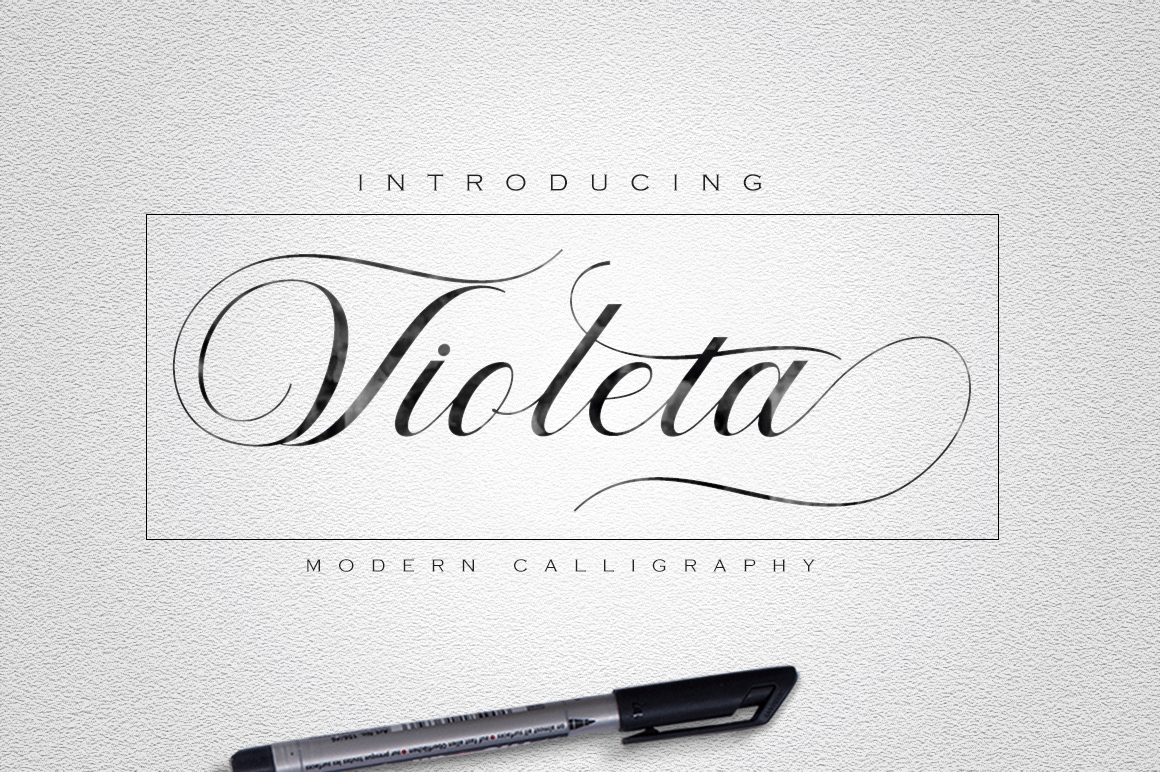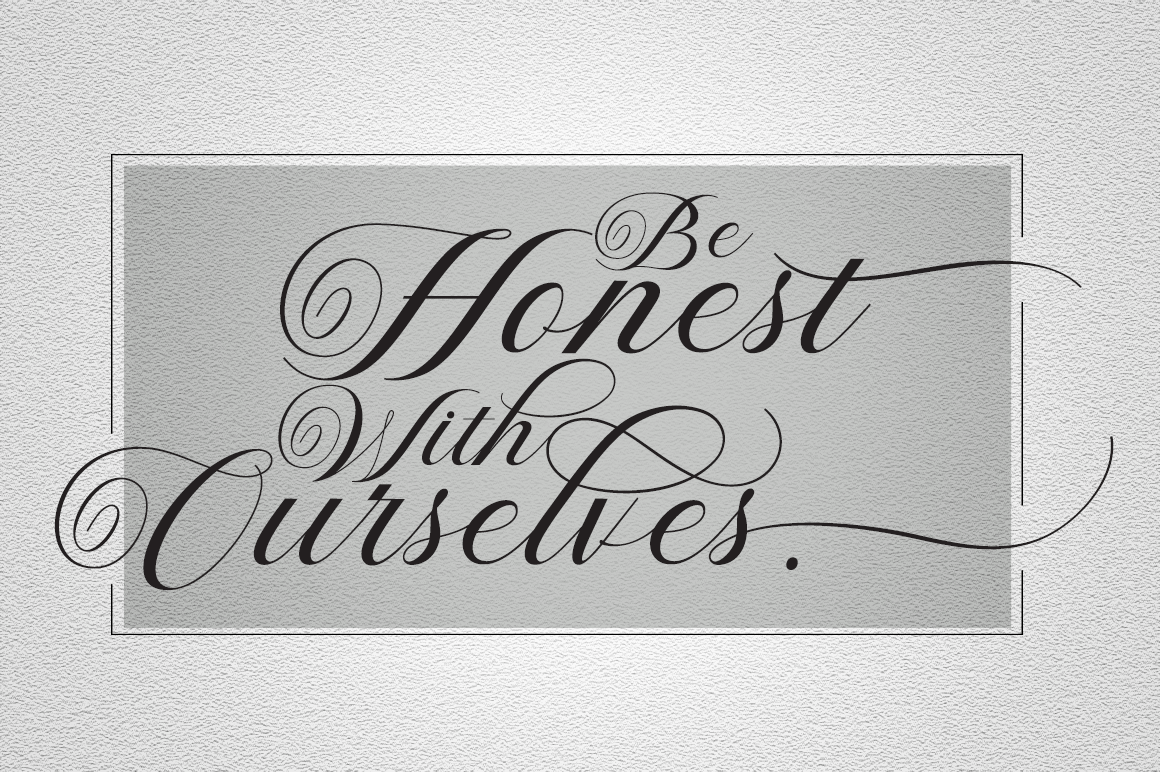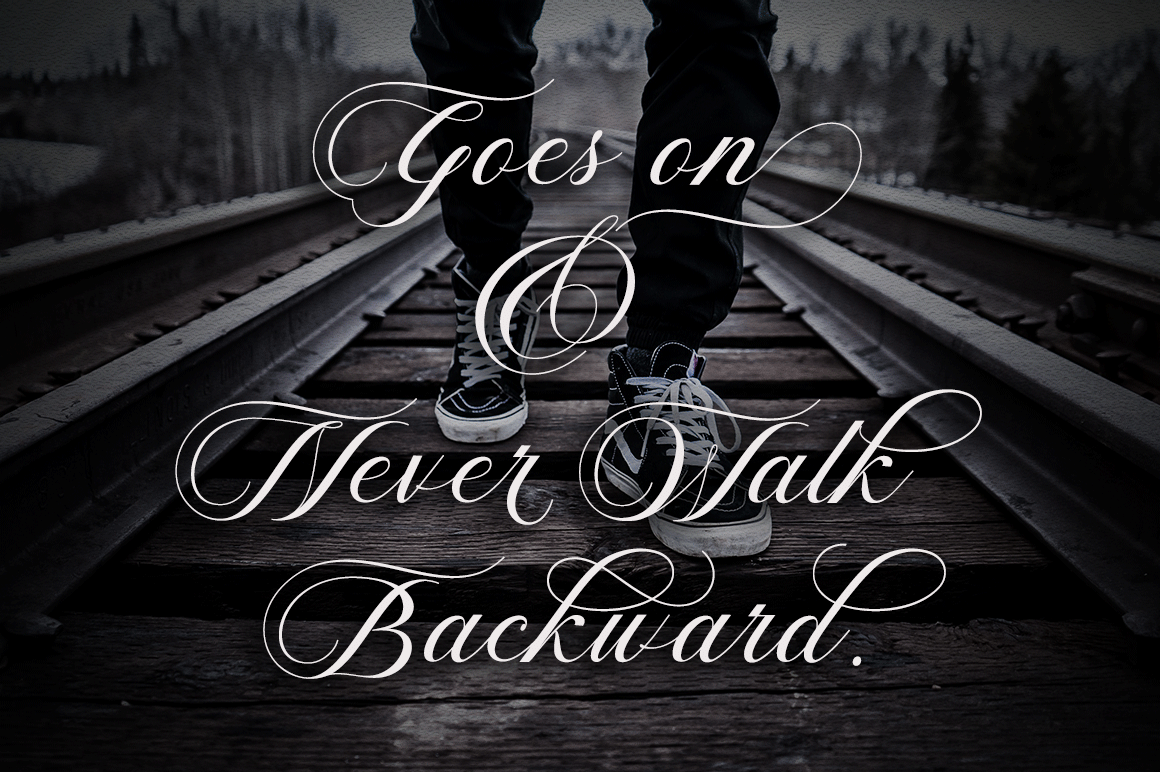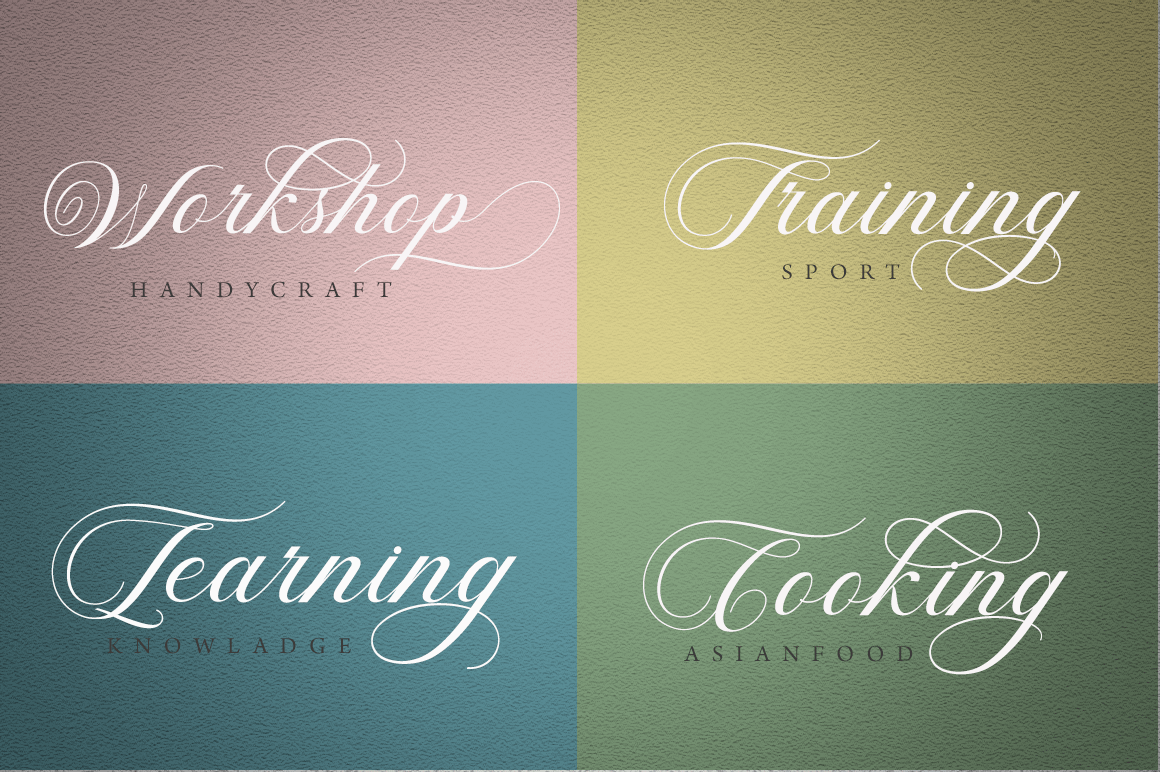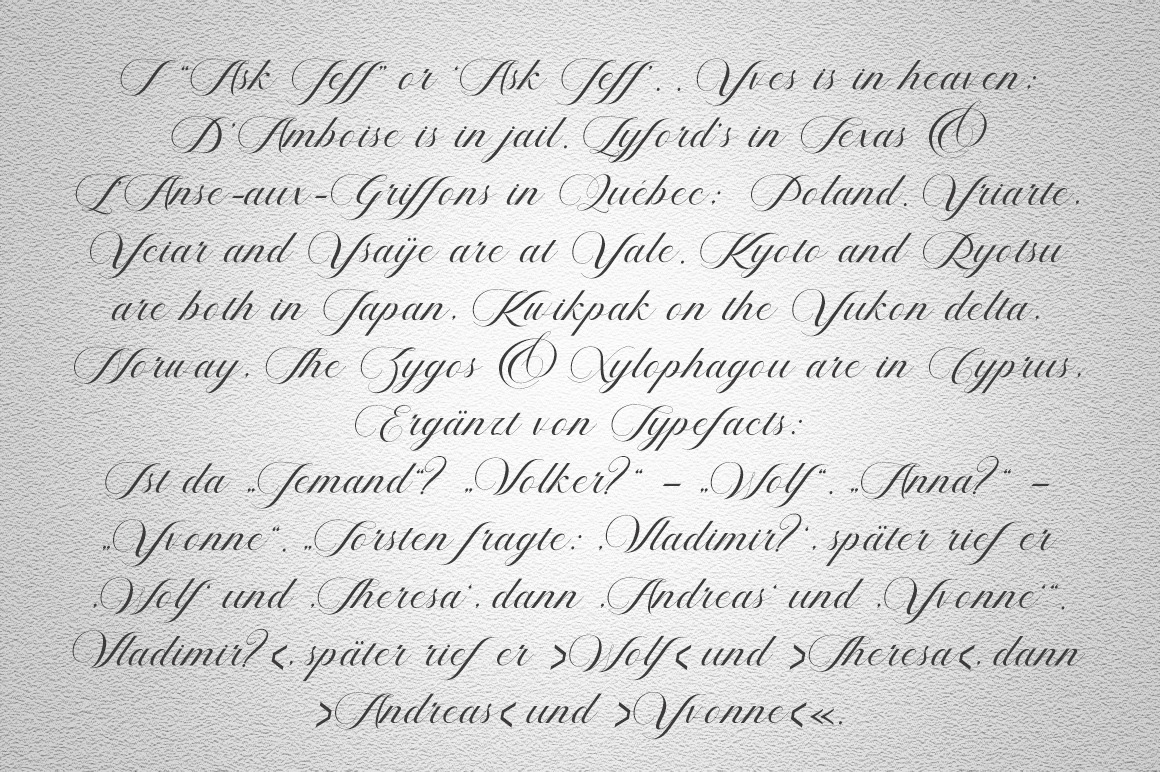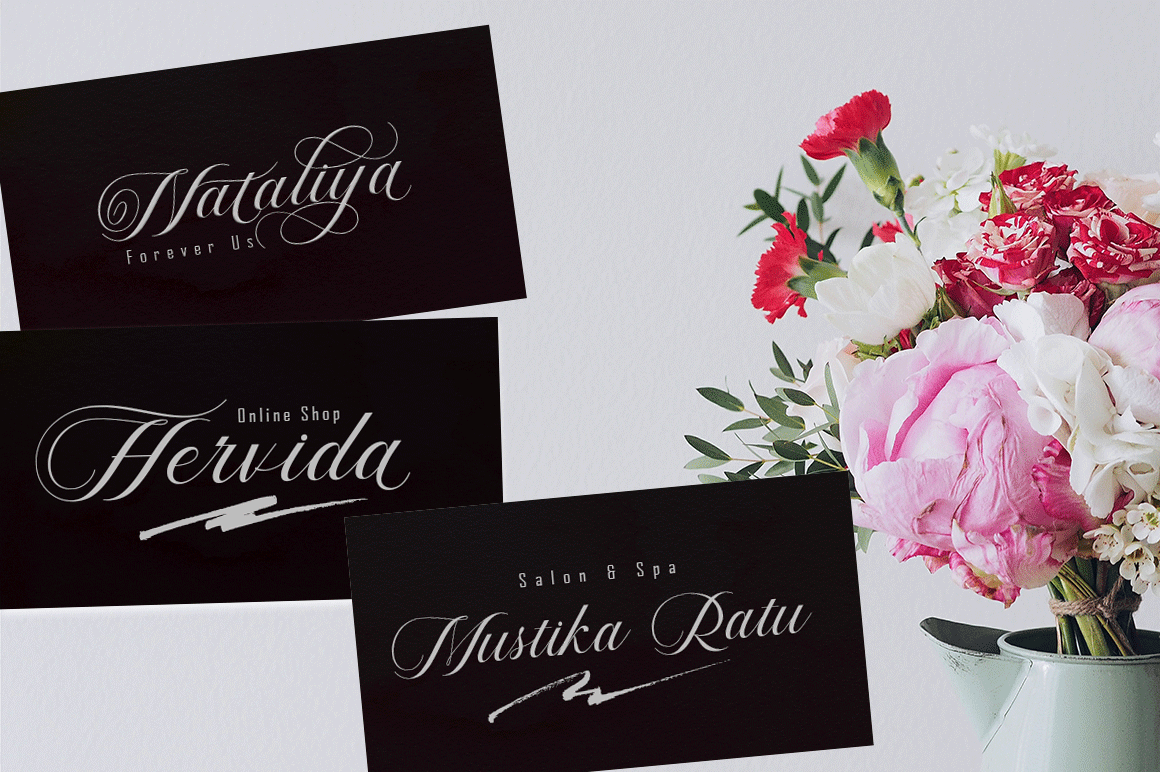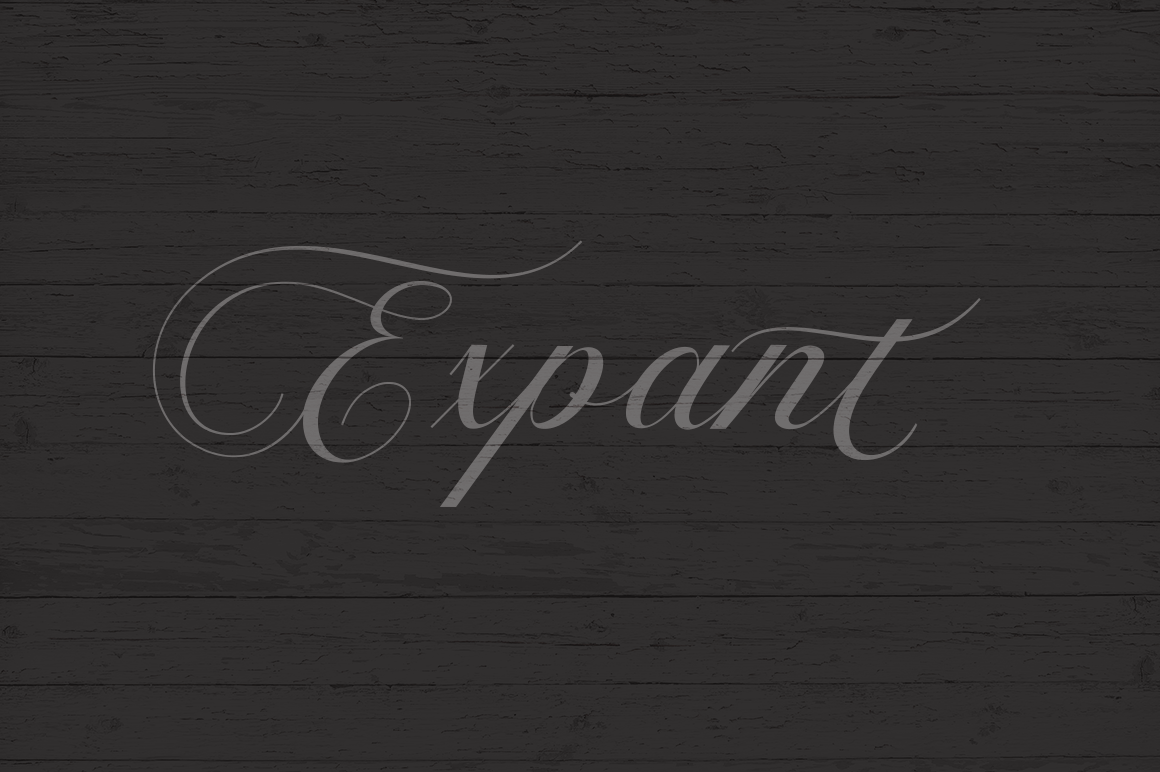
Violeta Font
About Violeta Font
Violeta is lovely modern calligraphy typeface which combines classic calligraphy with a modern style.
The Violeta font features 500 unique hand-drawn glyphs and is packed with alternate characters.